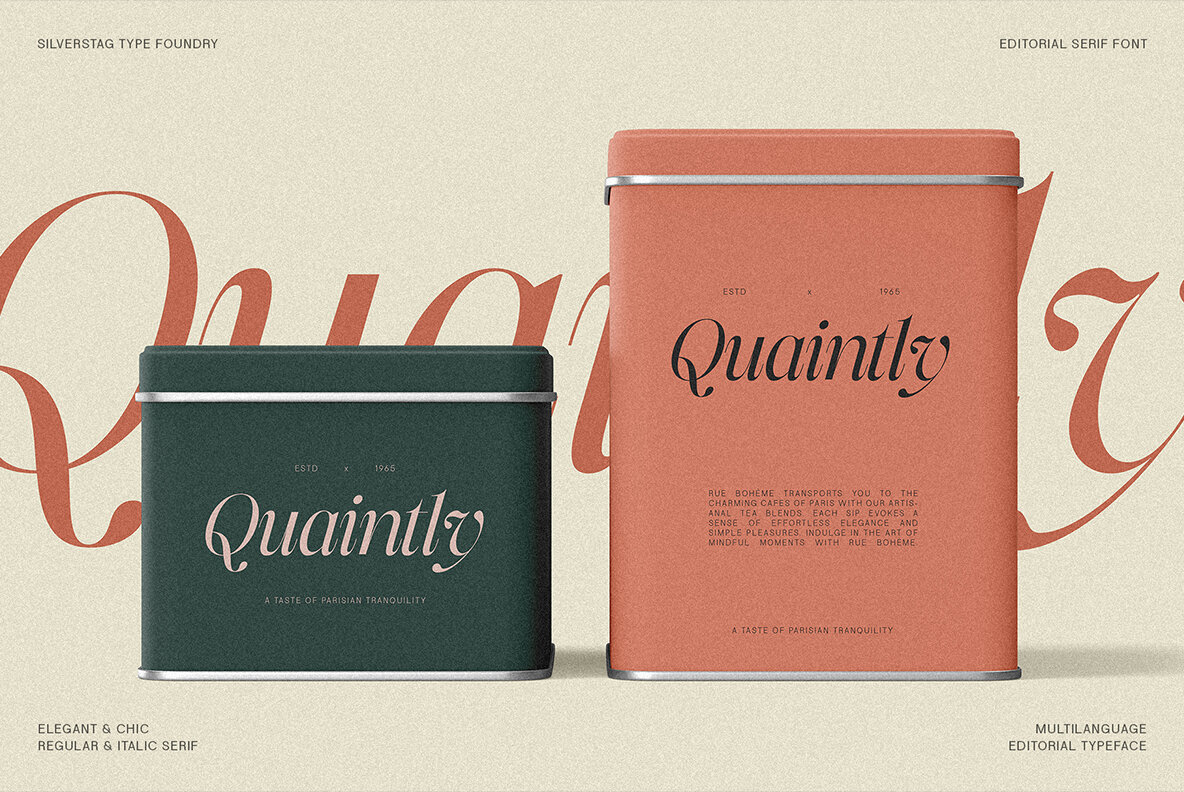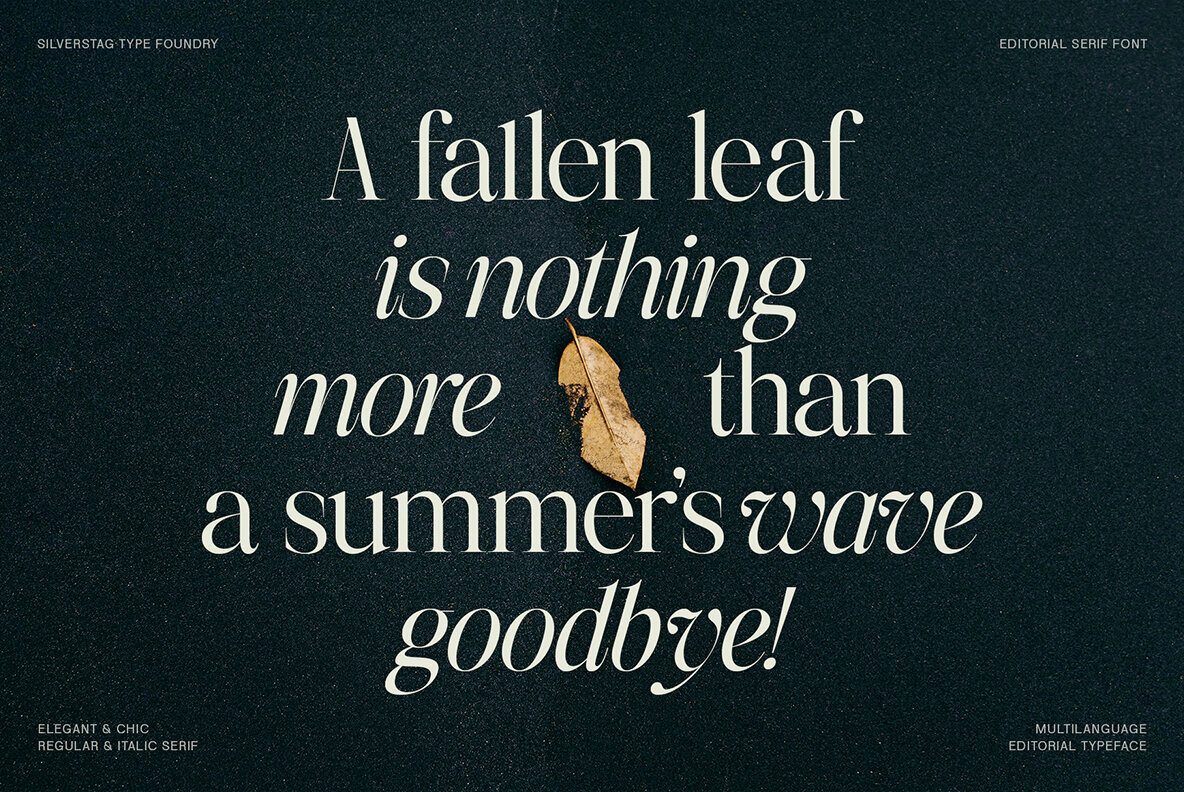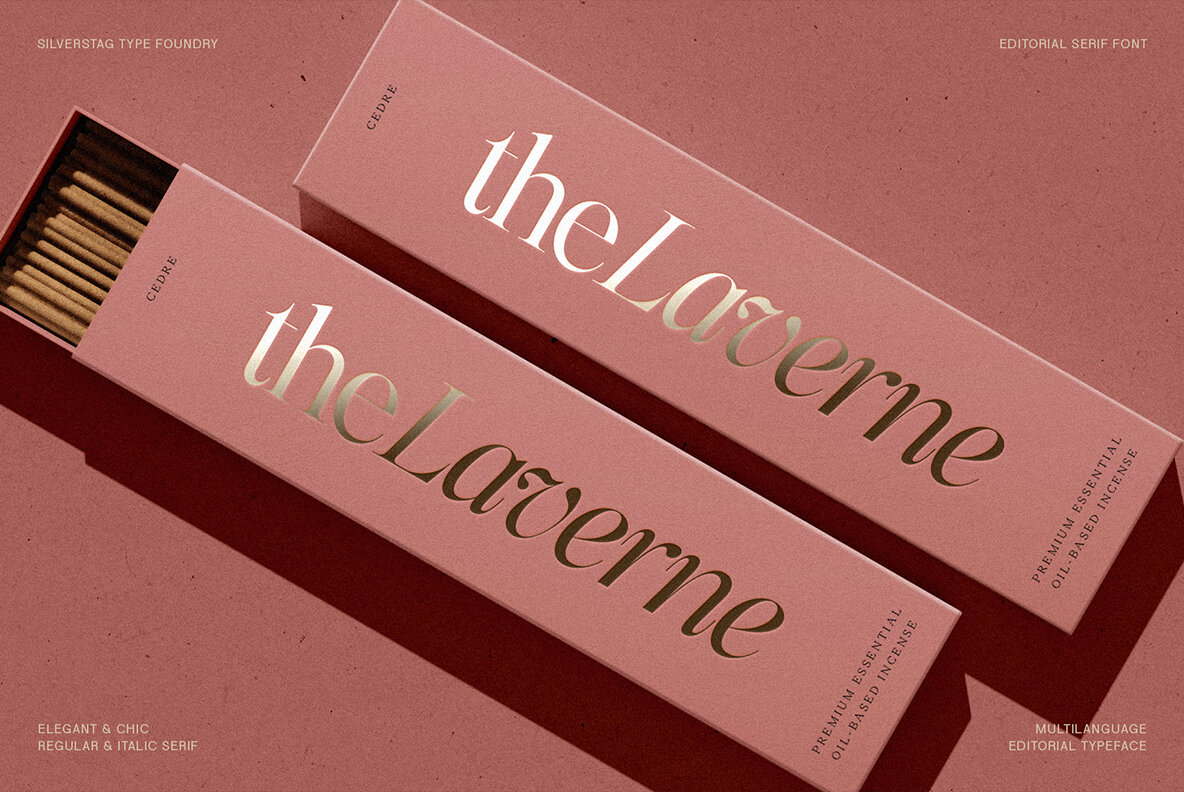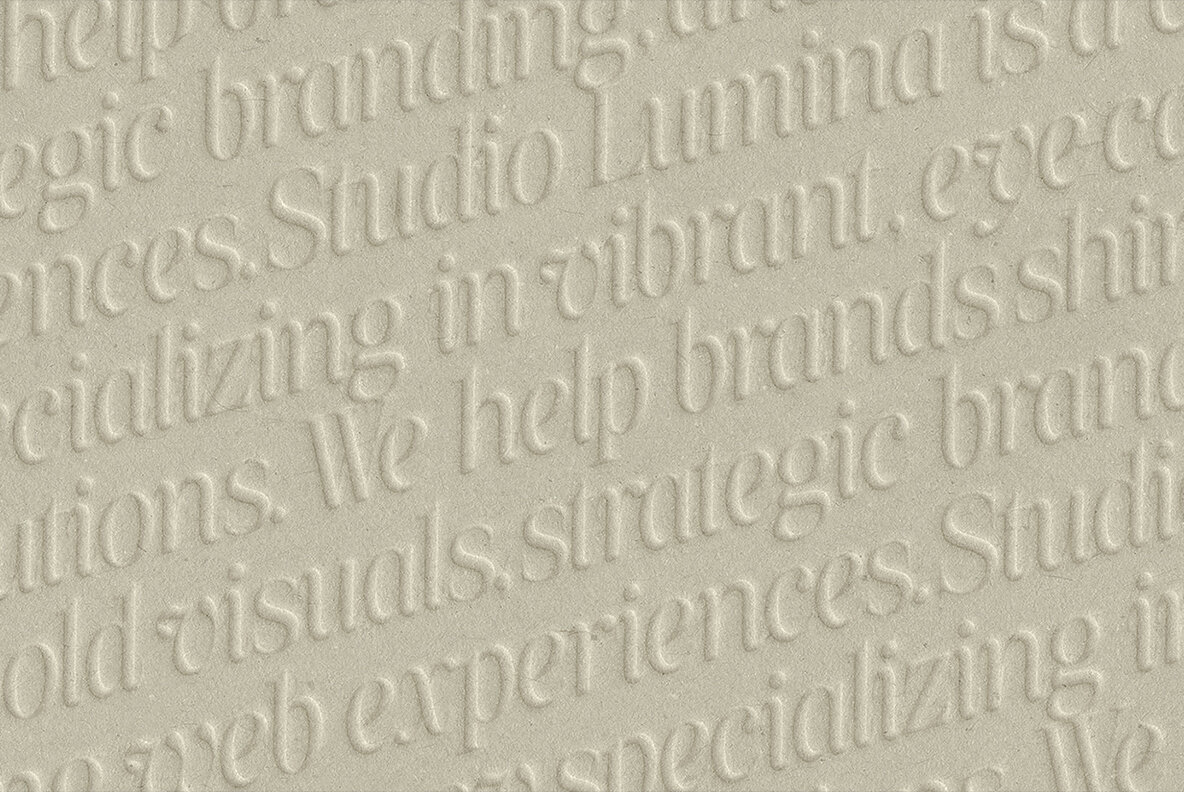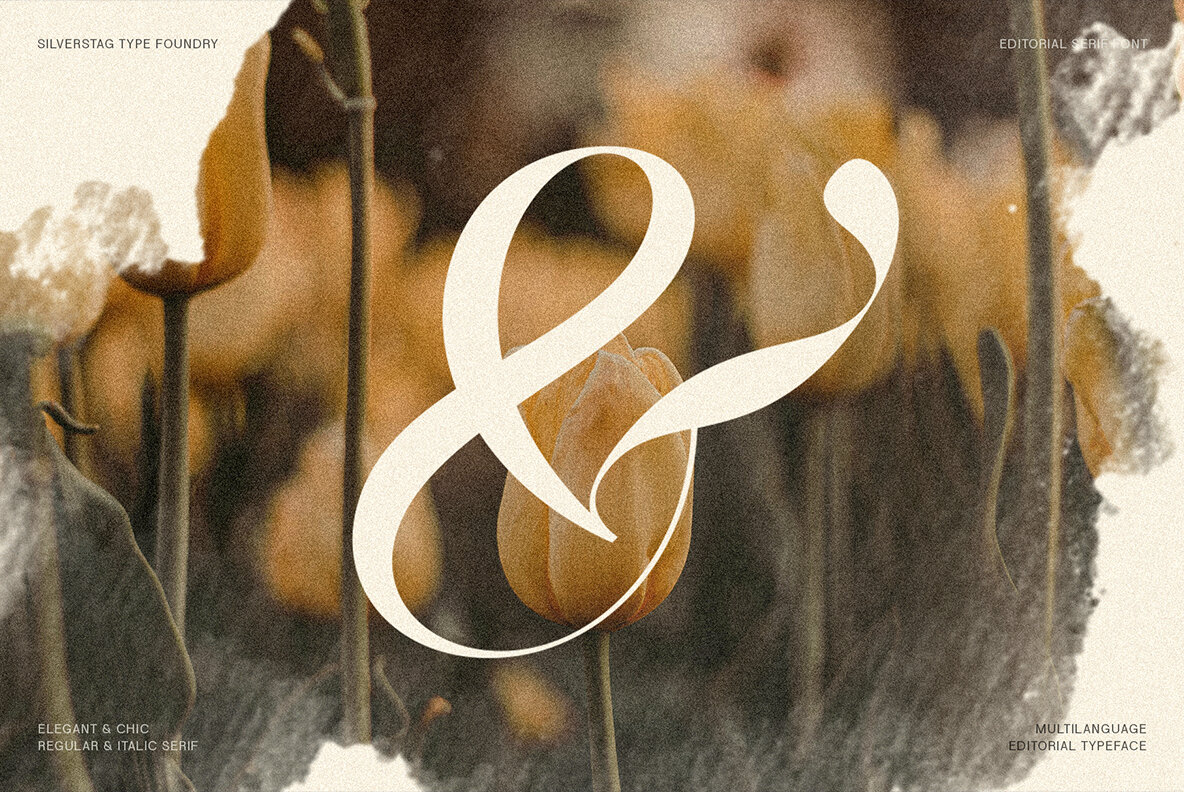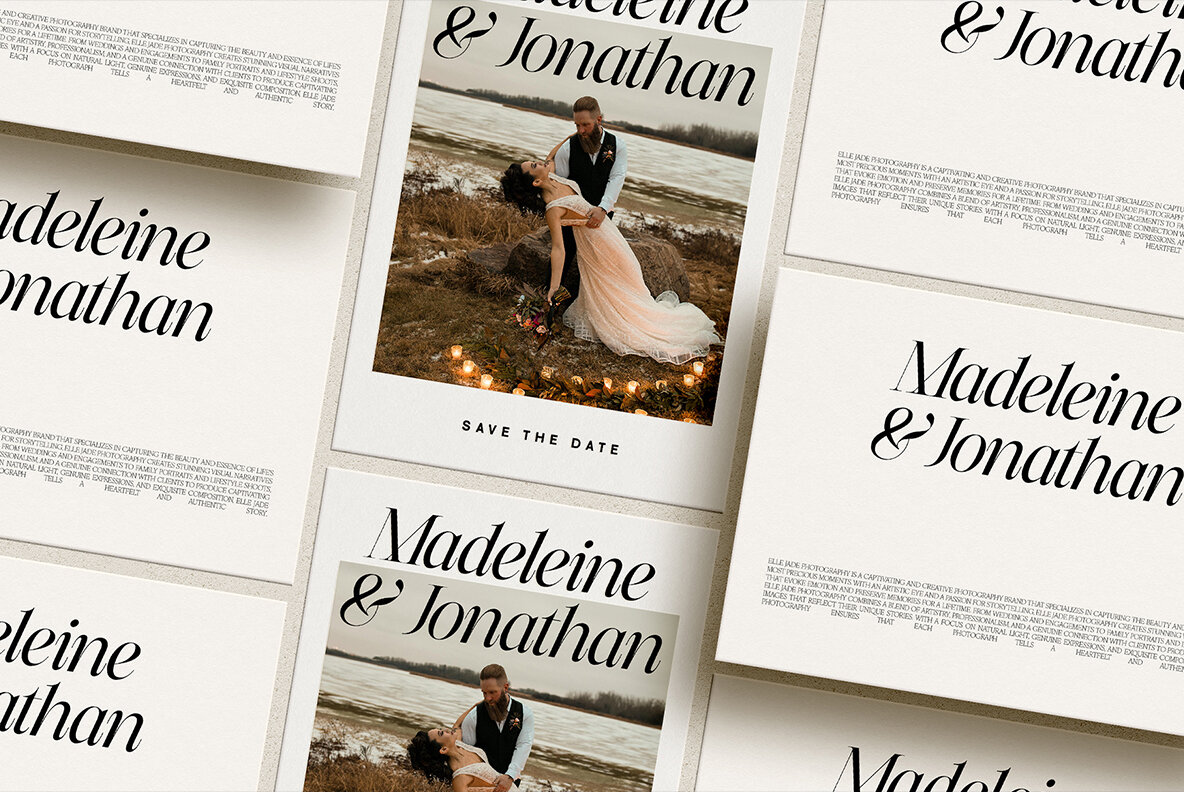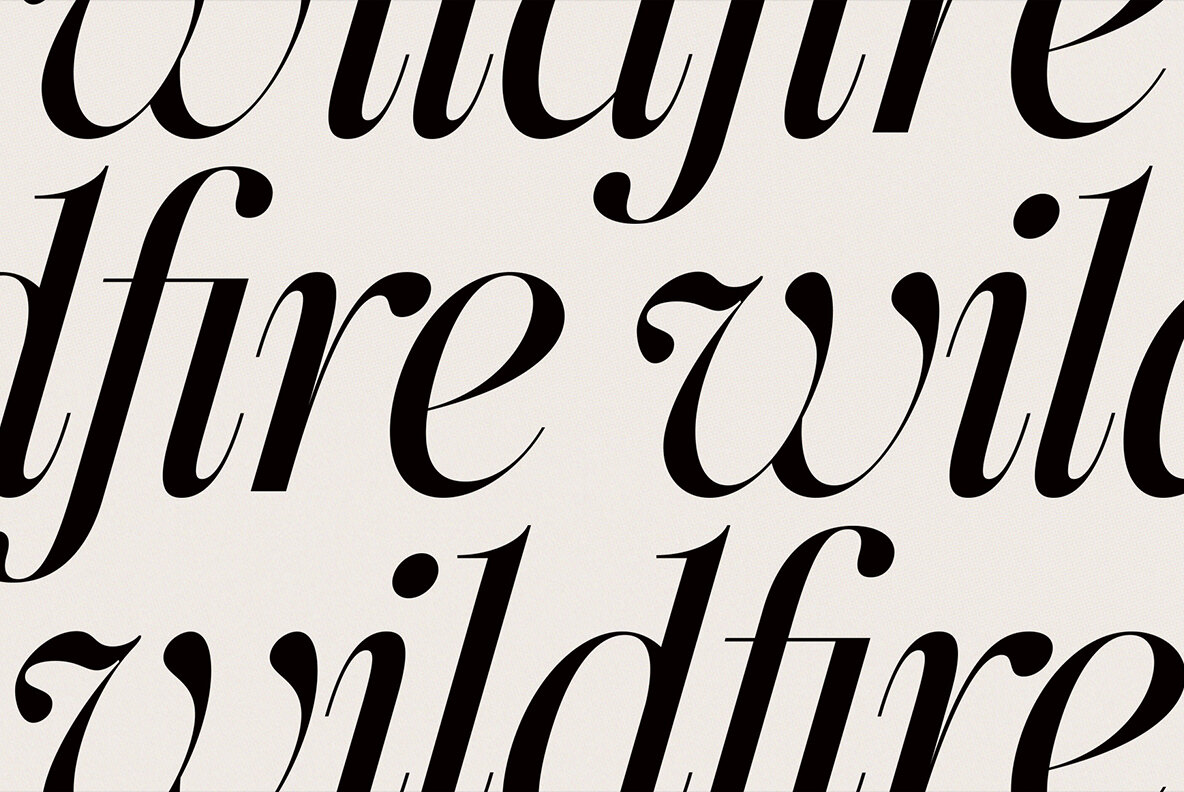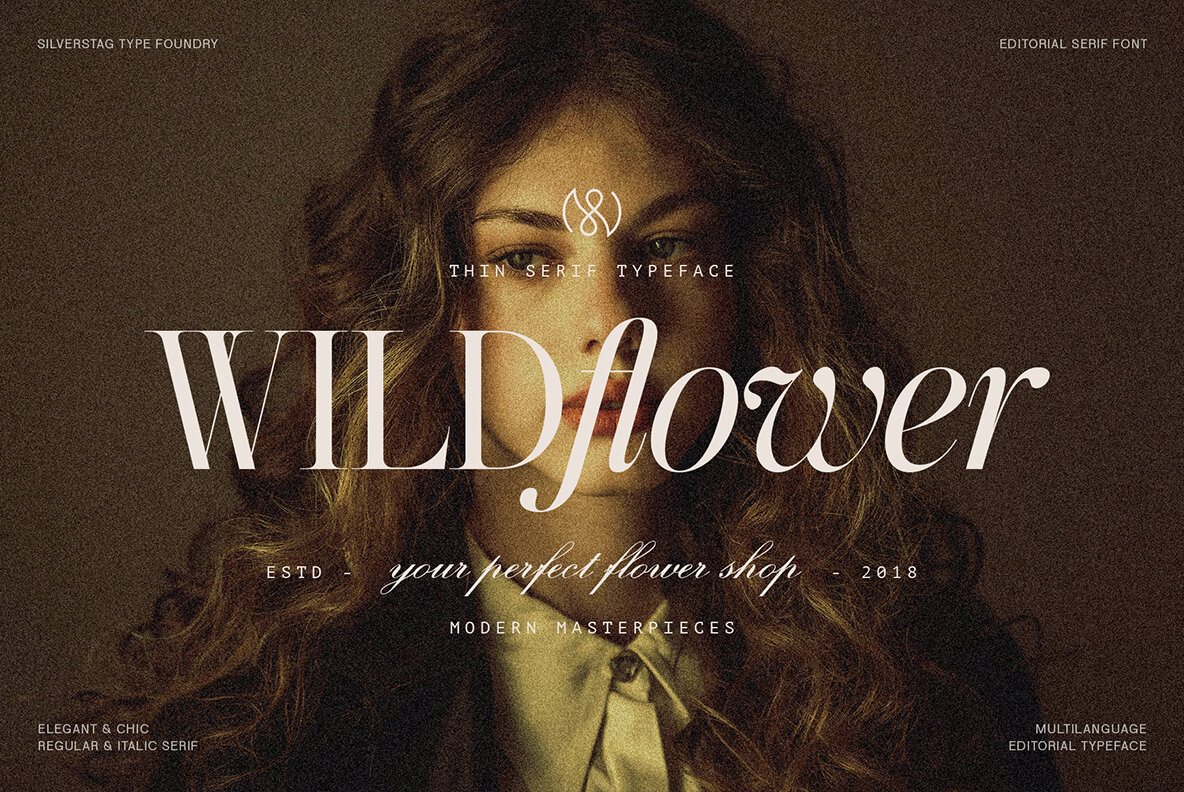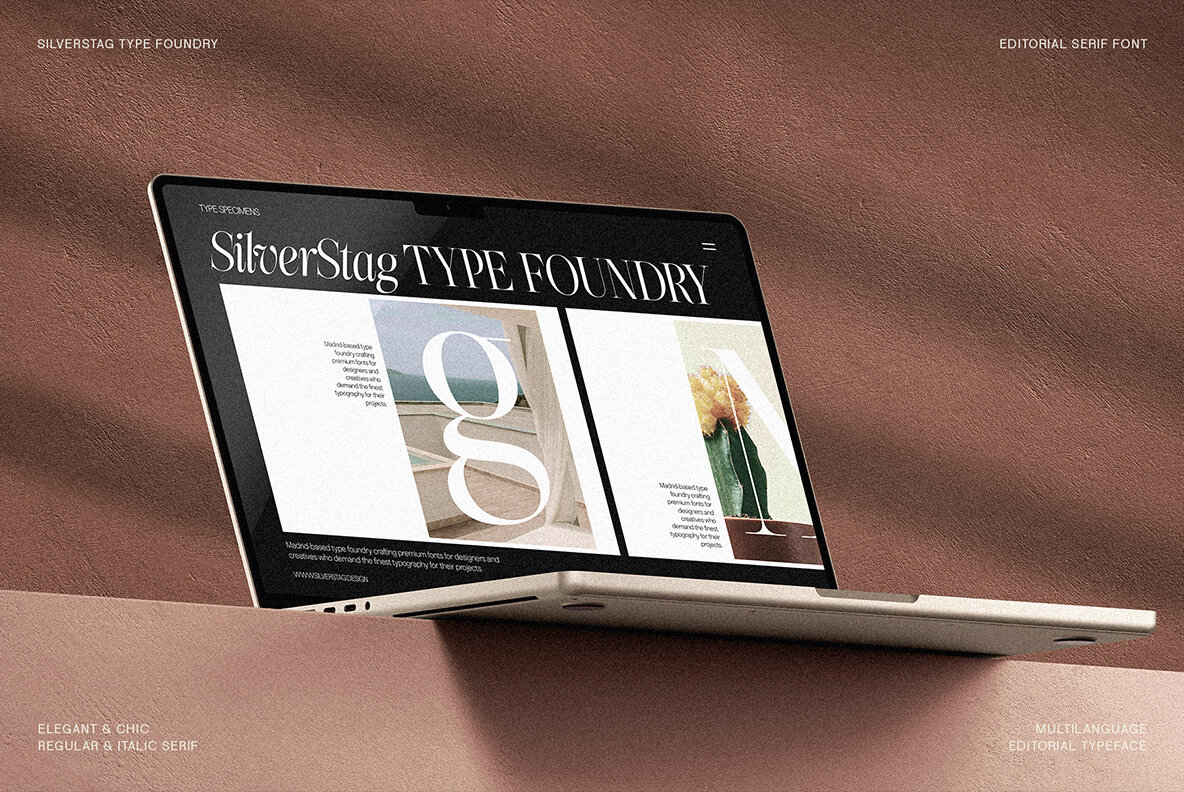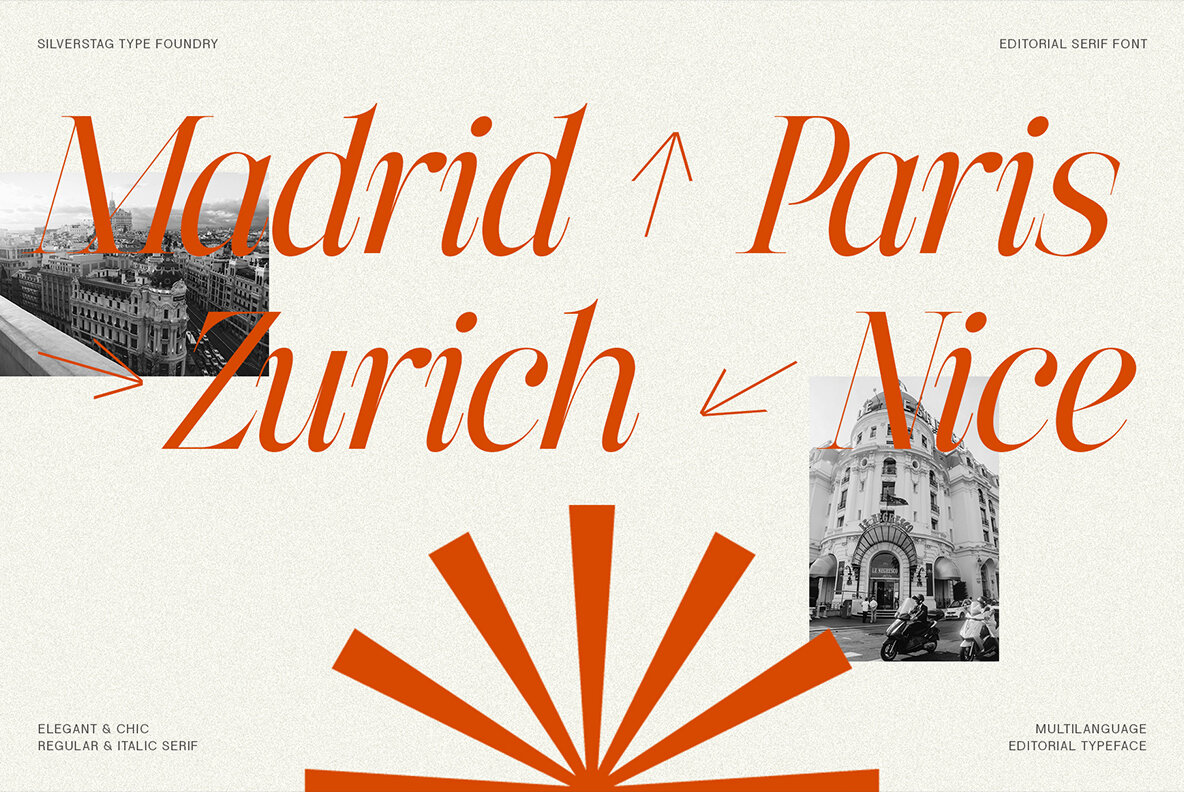
The Portray Font
Introducing The Portray: A Serif Typeface for the Modern Aesthete Embrace the allure of timeless elegance with The Portray, a meticulously crafted serif typeface that seamlessly blends classic charm with contemporary flair. Its high-contrast strokes and graceful curves create a visual symphony that captivates the eye and elevates any design. Whether you're crafting a sophisticated editorial layout, a striking brand identity, or an engaging website, The Portray's versatility and refined beauty will set your work apart. Immerse yourself in the world of The Portray, where each character has been thoughtfully designed to exude both strength and subtlety. From its meticulously sculpted serifs to its perfectly balanced proportions, this typeface is a testament to the enduring power of classic typography. Its true italics, with their own unique personality, add a touch of dynamic movement and visual interest, allowing you to create designs that are both captivating and effortlessly readable. Key Features: Perfect for: